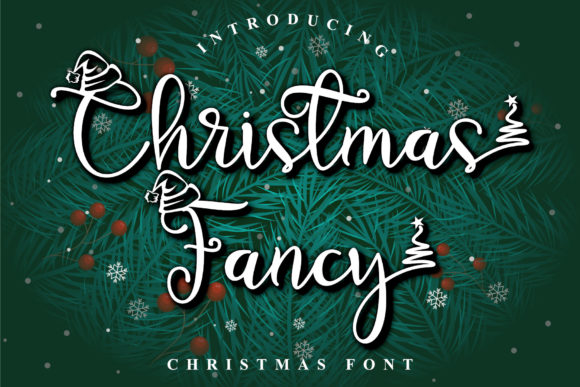
Looking for the perfect font to add a touch of elegance and festivity to your designs? Look no further than Christmas Fancy Font! Created by the talented designer Andreyfontdesign, this script font is a must-have for anyone seeking the best font for a magazine or any creative project.
Christmas Fancy Font is more than just a font – it's a magical tool that will elevate your designs to a whole new level. With its charming little festive accents, this font captures the essence of the holiday season, making it perfect for Christmas-themed projects, invitations, greeting cards, and so much more.
What sets Christmas Fancy Font apart from other fonts is its versatility. Whether you're designing a magazine cover, a logo, or a social media post, this font will add a touch of elegance and sophistication that will captivate your audience. It effortlessly combines the beauty of handwritten script with the festive spirit of Christmas, creating a unique and eye-catching visual experience.
One of the standout features of Christmas Fancy Font is its PUA encoding. This means that you can easily access all the glyphs and swashes, allowing you to customize and personalize your designs to perfection. Let your creativity run wild as you explore the various options and possibilities this font offers.
Imagine the joy and excitement your audience will feel when they see your beautifully designed Christmas-themed materials. From invitations that evoke warm holiday memories to stunning magazine layouts that leave a lasting impression, Christmas Fancy Font will help you create designs that truly stand out from the crowd.
In conclusion, Christmas Fancy Font is the ultimate font for anyone looking to add a touch of festive charm and elegance to their designs. With its charming accents, versatility, and easy accessibility to glyphs and swashes, this font is a game-changer. So, why wait? Let your creativity shine and make this holiday season truly unforgettable with Christmas Fancy Font!